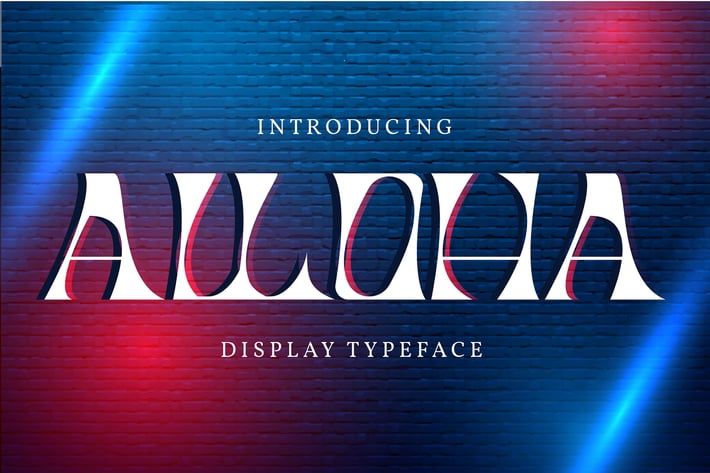
Alloha | Display Typeface Font
Alloha | Display Typeface Font with a calligraphy style, So beautiful on invitation like greeting cards, branding materials, business cards, quotes, posters, and more!